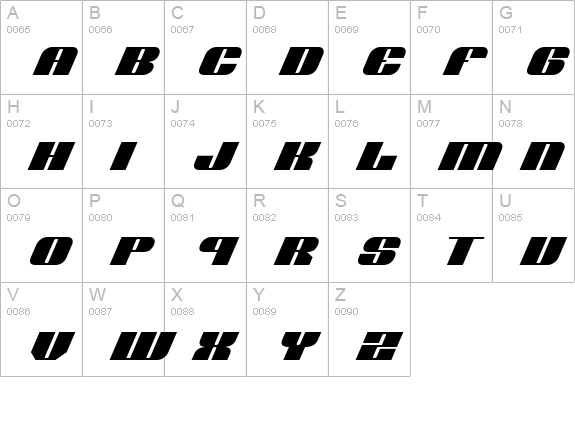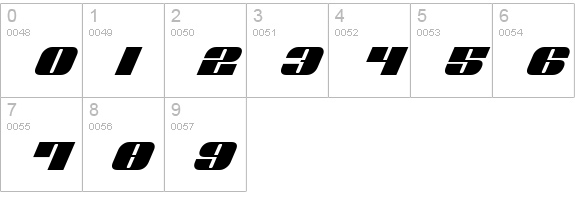
Nolo Contendre Italic is a distinctive, italic variant in the Nolo typeface family \xE2\x80\x94 well suited to design and typography projects.
Nolo Contendre Italic font is a sleek and stylish typeface designed for modern and sophisticated designs. With its elegant and unique italicized style, this font exudes a sense of class and refinement. Its smooth curves and distinctive letterforms make it perfect for adding a touch of elegance to any project. What sets Nolo Contendre Italic font apart is that it is freely available to download at FontsMarket.com. This means that you can easily access this premium font without any cost, making it a valuable addition to your font collection. Whether you're working on a branding project, editorial design, or any other creative endeavor, Nolo Contendre Italic font is sure to elevate your work with its timeless appeal.